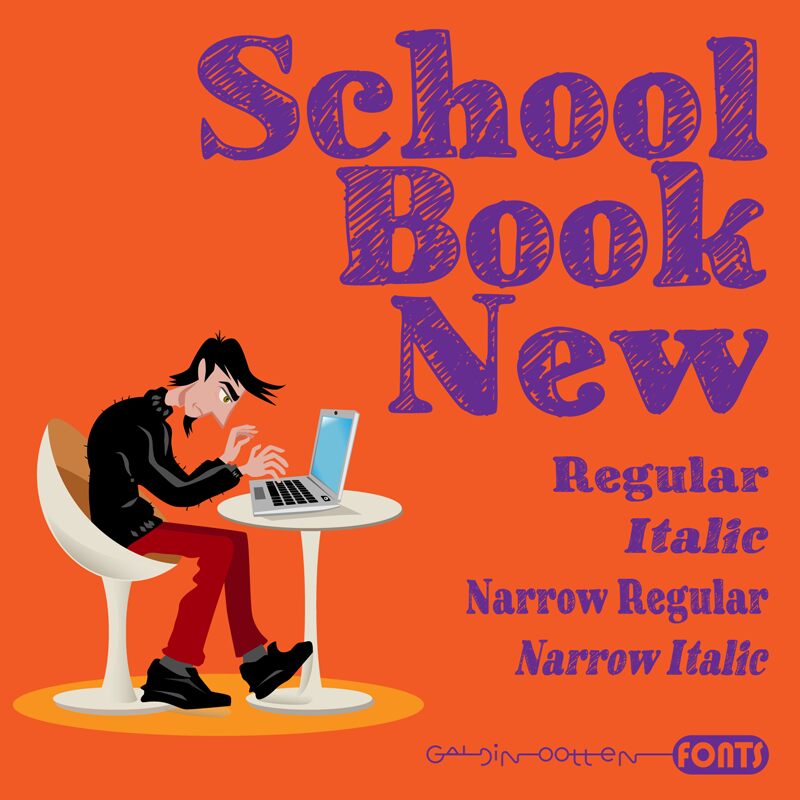
School Book New Narrow Italic
School Book New Narrow Italic font is a bold condensed display font designed by Galdino Otten Fonts. Its casual, artistic look is achieved through a combination of vintage-inspired characters and textured effects, making it more authentic. The font also matches well-drawn illustrative graphics since it seems like an integral part of the artwork.
This free artistic typeface would visually enhance product labels and packages, posters and flyers, advertising materials, websites and blogs. It can also be included in comics dialogue boxes text as well as book covers for an engaging title design.